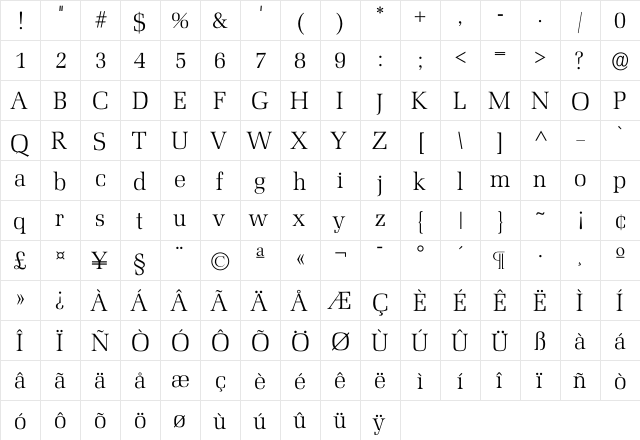
Marsei Light
Design Context for Marsei Typeface
Marsei is a composed and adaptable typeface that performs quietly and consistently across a wide range of design contexts. The delicate stroke weight brings airiness and refinement to layouts.